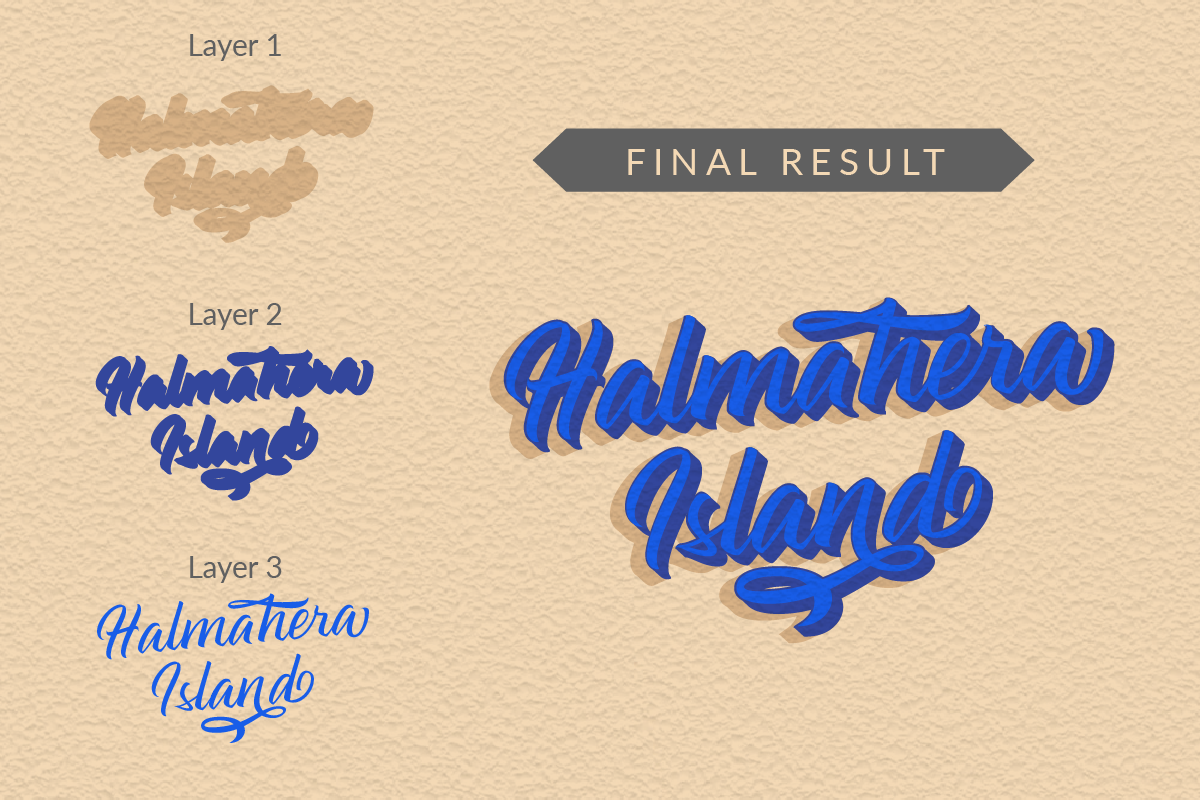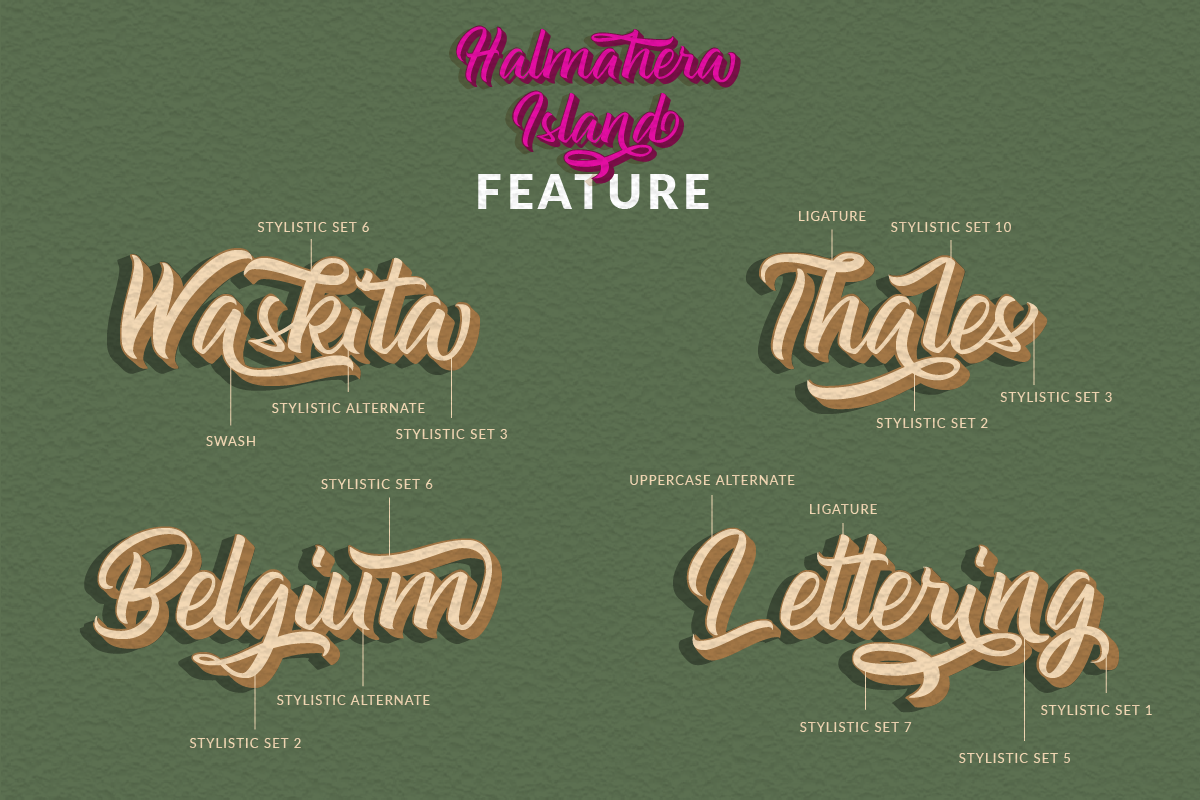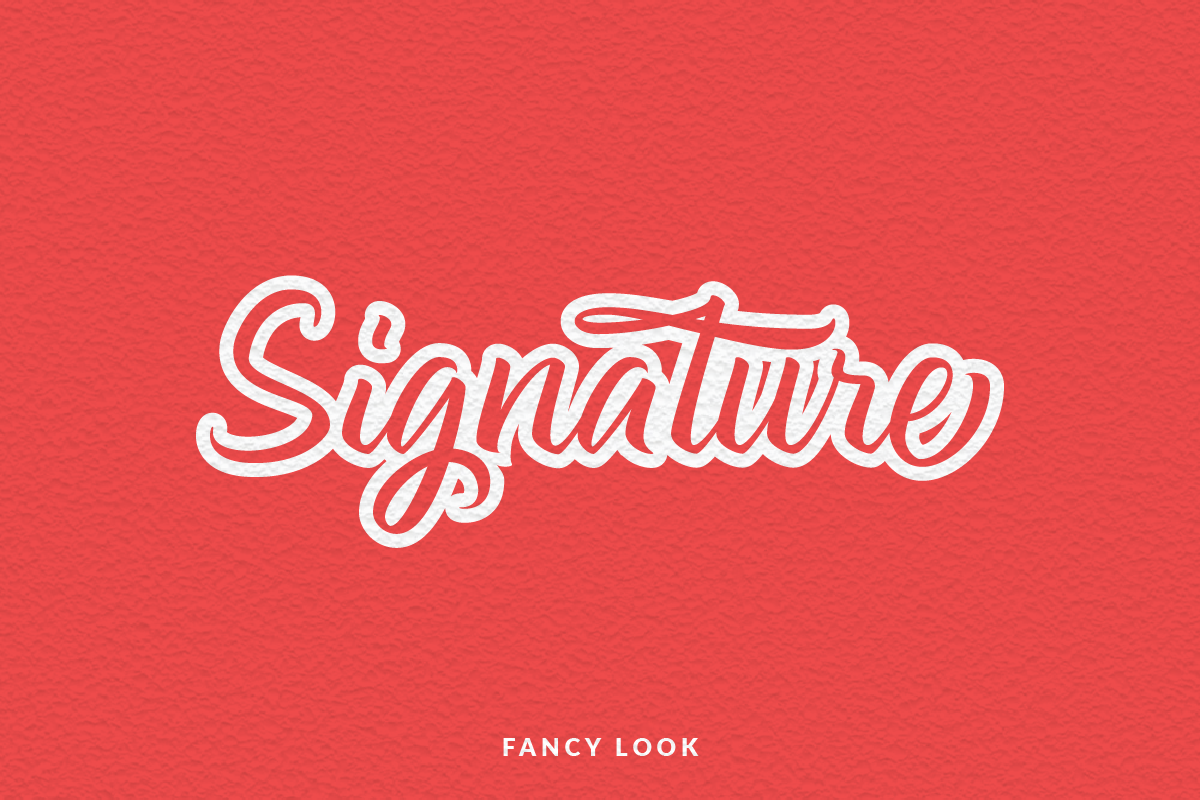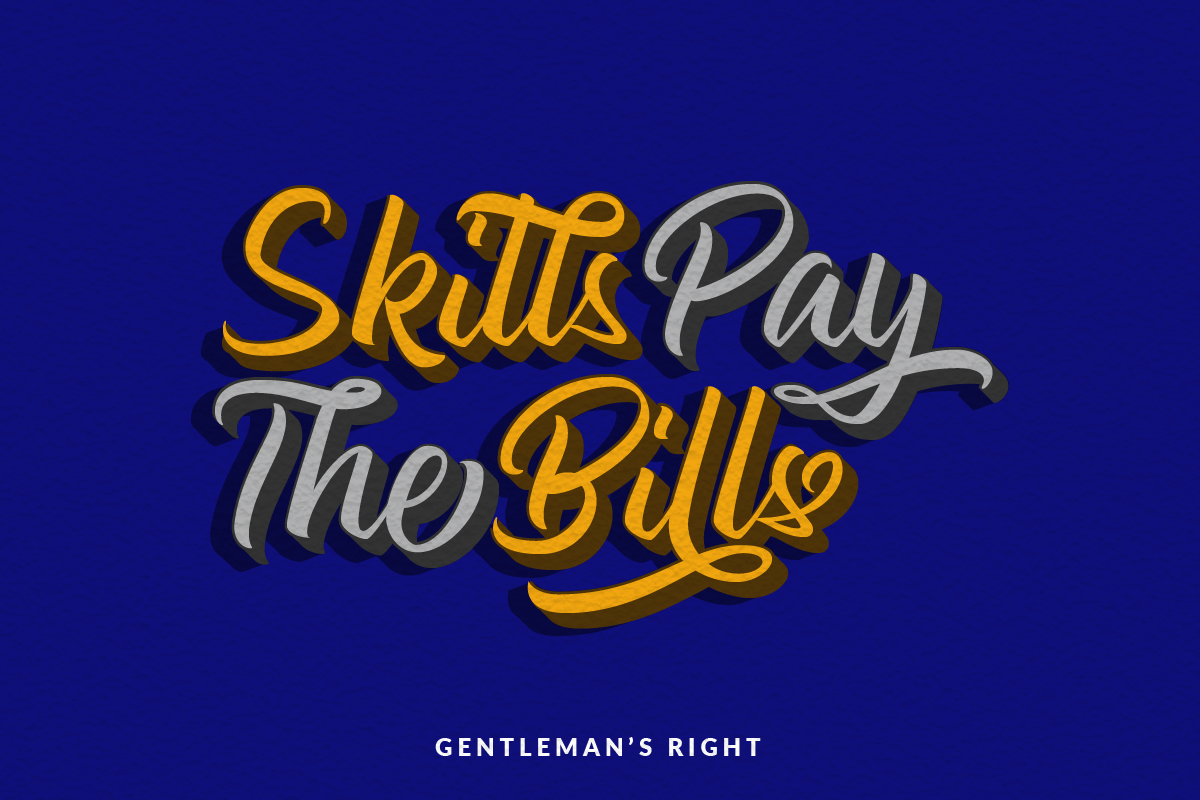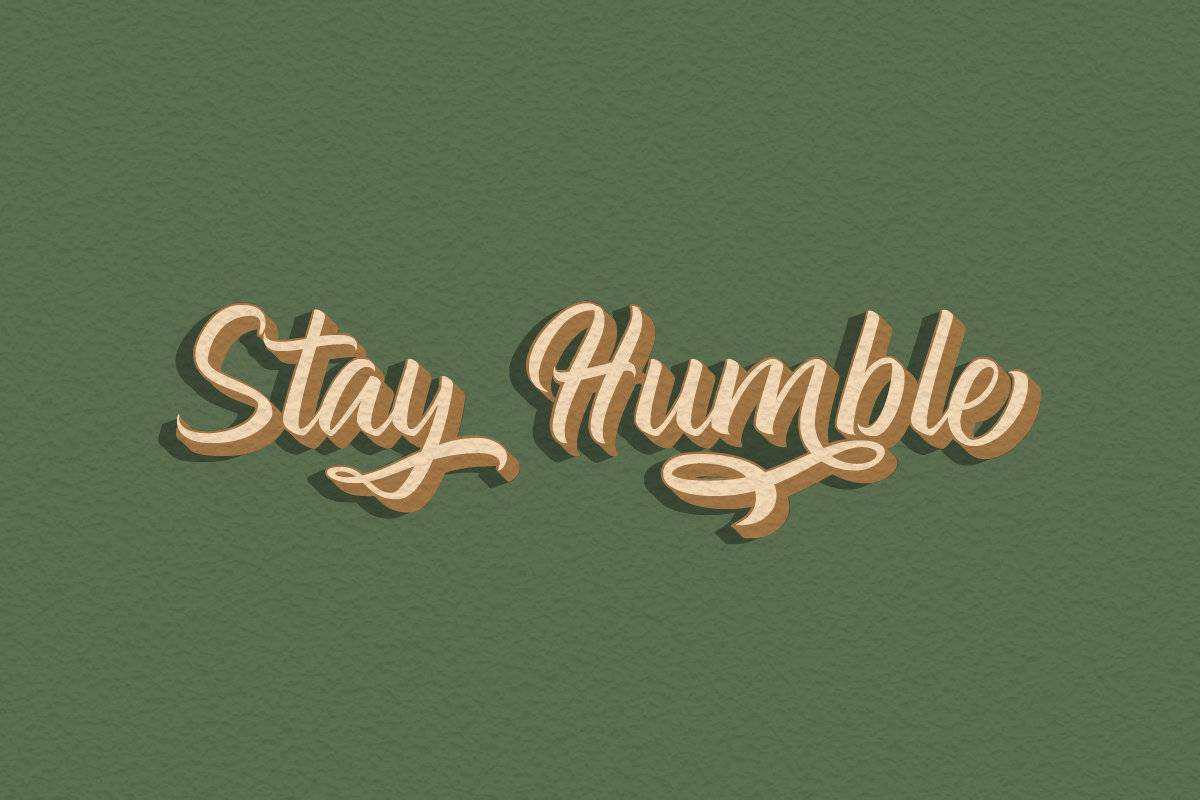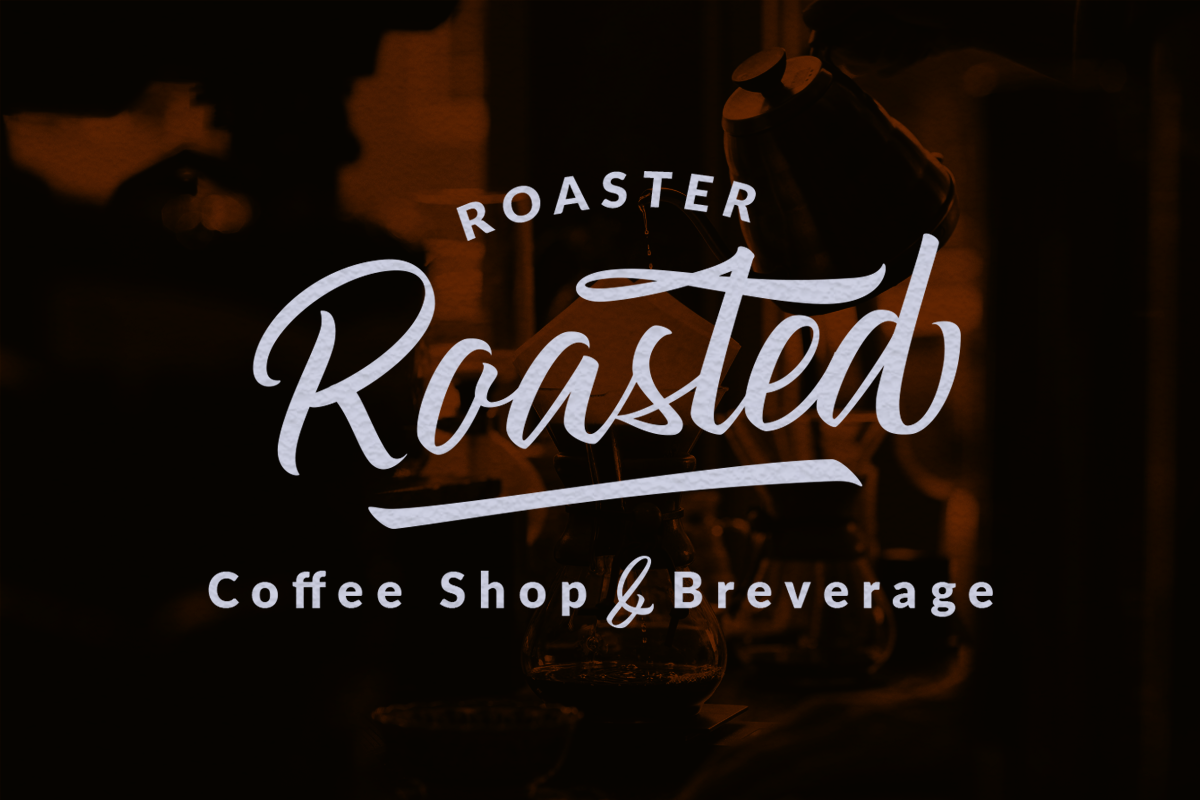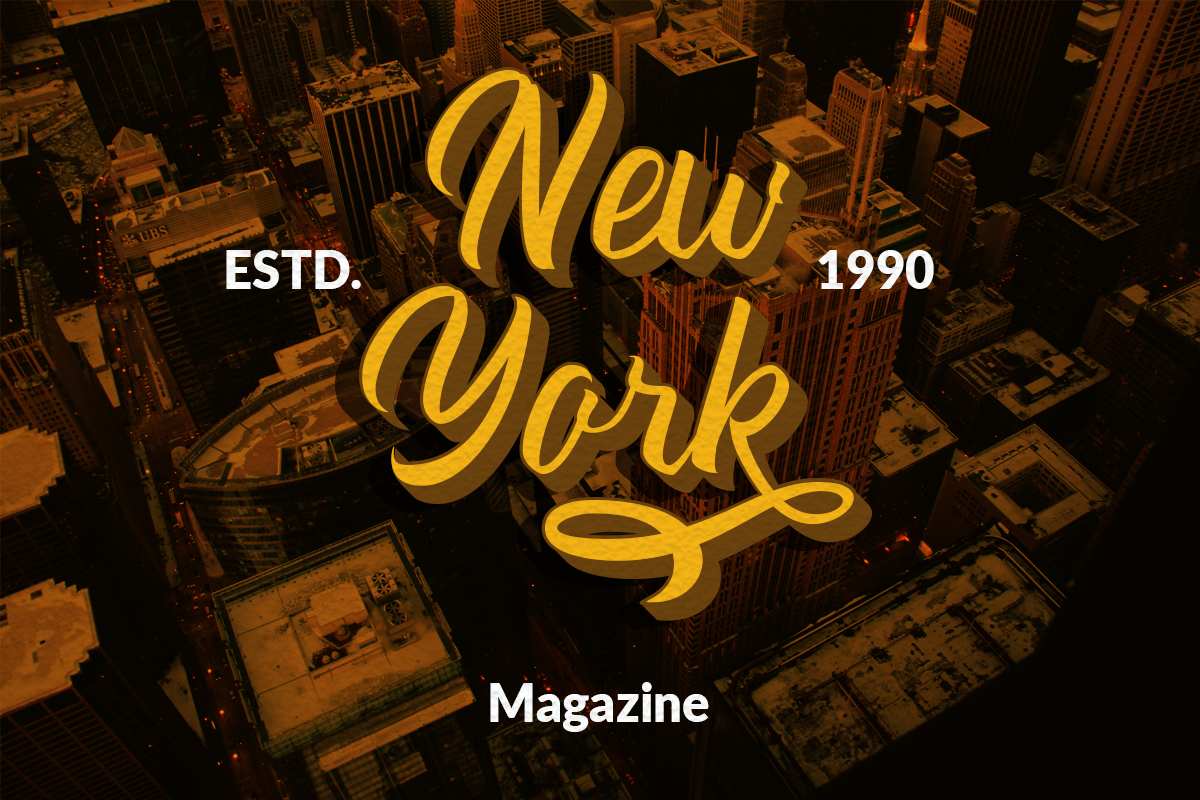
Halmahera Island - Layered Font
Proudly Present Halmahera Island - Layered font. Inspired from the island of Halmahera, North Maluku Province which has a lot of beautifull destination like Beach, Diving Spot, Waterfall and more recomended place. Halmahera Island Font made with the beautifull of Hand Calligraphy with 3 Layer Font that makes your Design look 3D.
- PUA Encoded Stylistic Alternate Stylistic Set (1-10) Swash Contextual Alternate Ligature Multilingual Support Also Bring Best Seller Font Wi
Halmahera Island - Layered Font by Youthlabs Studio fits naturally into Branding, posters, packaging, typography.